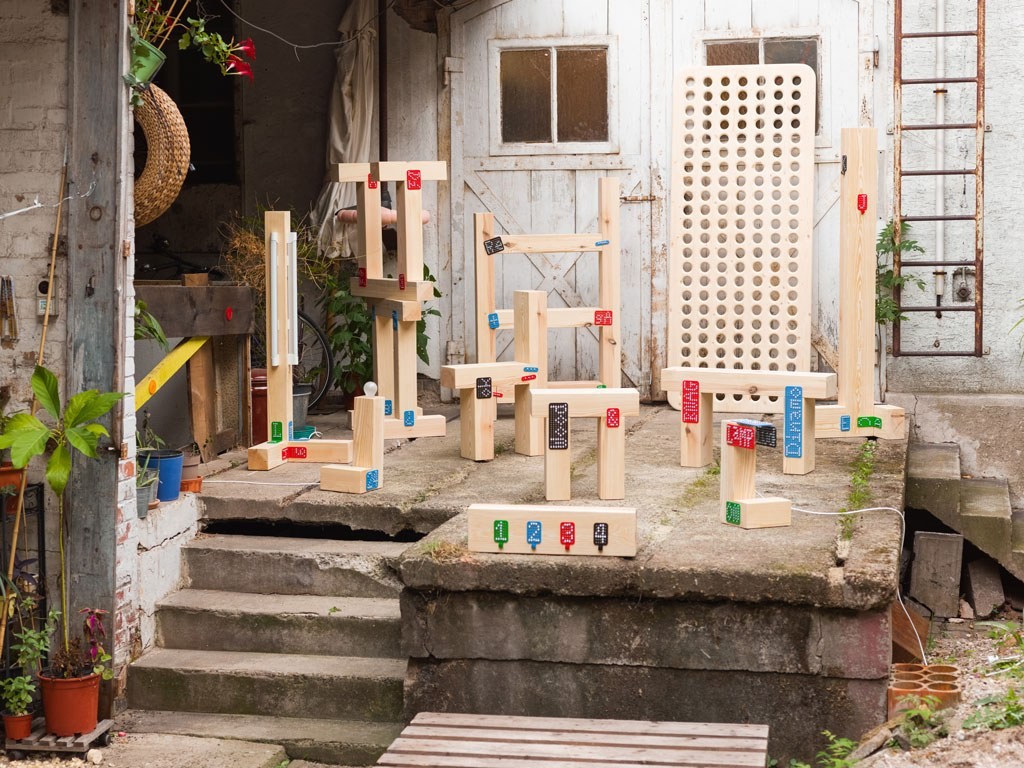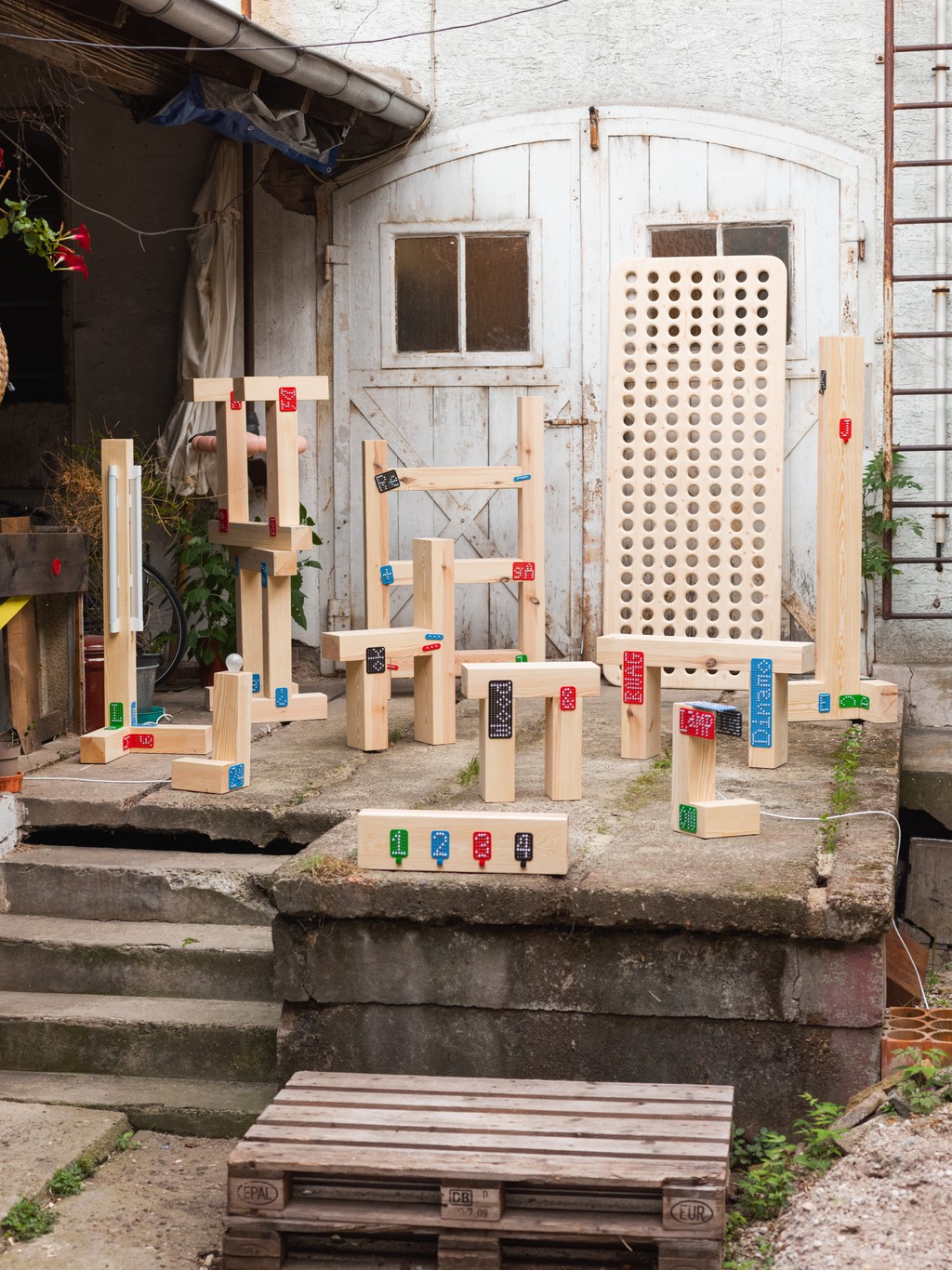
About Connect
ABC Connect is a digital dot font based on the ABC C-o-n-n-e-c-t-o-r-s grid. The typeface contains monospaced and proportional styles, all with corresponding Italics, making it (probably) the world ’s first Italic dot font (but don’t drill us on that one). It also comes in 5 common screw head styles, including Flat, Torx, Hex, Nail, and Phillips.